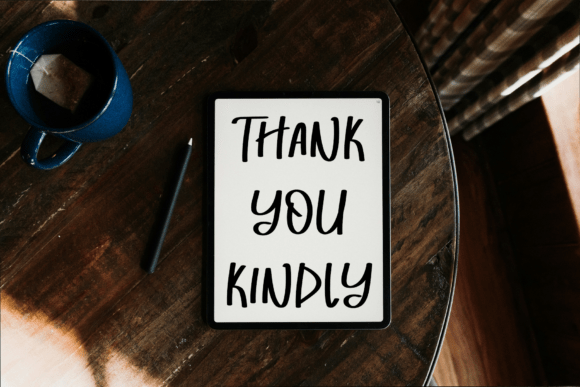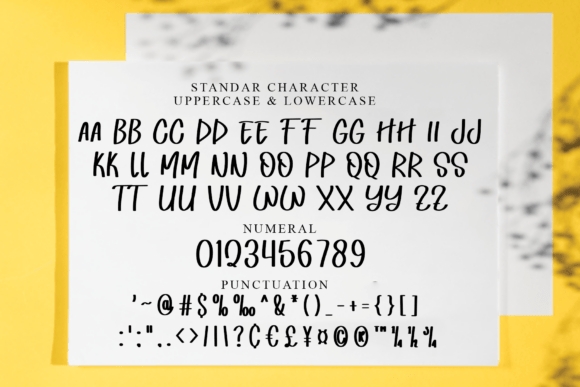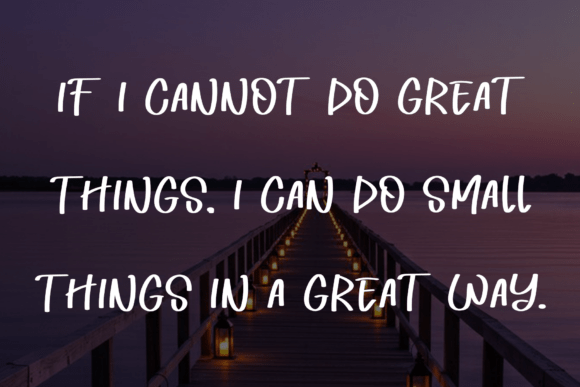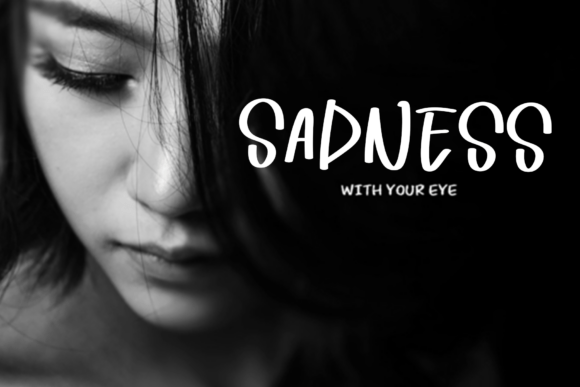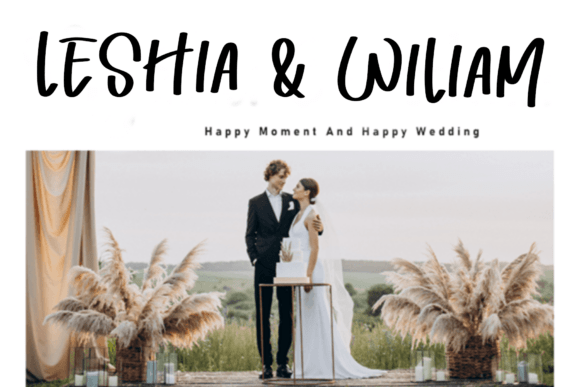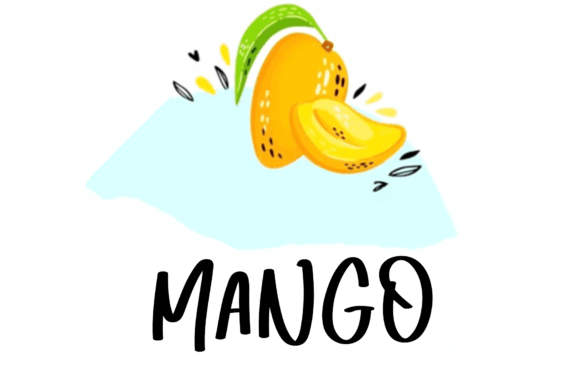
Introducing Handmade Variation Font: A Casual and Creative Typographic Delight
In the world of typography, few fonts manage to convey a sense of warmth and friendliness as effectively as the Handmade Variation font. This delightful font is a perfect blend of casualness and creativity, making it an ideal choice for designers and crafters looking to add a personal touch to their projects. Whether you’re working on personal endeavors, designing invitations, or creating engaging social media graphics, Handmade Variation is sure to bring a smile to your audience’s faces.
The Characteristics of Handmade Variation Font
So, what makes Handmade Variation font stand out from the crowd? For starters, its round, playful strokes create a relaxed and approachable feel that’s hard to resist. The font’s charming, hand-drawn aesthetic adds a fun and unique touch to any design, making it perfect for those who want to infuse their work with a sense of personality and whimsy.
Perfect for Personal Projects and Creative Endeavors
Handmade Variation font is particularly well-suited for personal projects and creative endeavors. Whether you’re designing:
• Personal invitations for special occasions, such as weddings, birthdays, or baby showers
• Social media graphics to engage with your audience and build your brand
• Blog posts or website content that requires a more personal touch
• DIY craft projects, such as handmade cards, gift tags, or scrapbooking pages
This font is sure to add a touch of warmth and personality to your designs. Its casual, hand-drawn aesthetic makes it perfect for creating content that feels approachable, friendly, and inviting.
So, what are the benefits of using Handmade Variation font for designers and crafters? Here are just a few:
• Unique and distinctive designs: Handmade Variation font allows you to create designs that stand out from the crowd and reflect your personality and style.
• Versatile: This font is perfect for a wide range of design projects, from personal invitations to social media graphics and blog posts.
• Time-saving: With Handmade Variation font, you can create professional-looking designs in no time, without sacrificing quality or personality.
Tips for Using Handmade Variation Font
To get the most out of Handmade Variation font, here are a few tips to keep in mind:
• Experiment with different colors and textures: Handmade Variation font looks great with a wide range of colors and textures, so don’t be afraid to get creative and try out different combinations.
• Pair with other fonts: Consider pairing Handmade Variation font with other fonts to create a unique and visually appealing design.
• Use for headlines and body text: Handmade Variation font is perfect for both headlines and body text, making it a versatile choice for a wide range of design projects.
In conclusion, Handmade Variation font is a casual and creative typographic delight that’s perfect for designers and crafters looking to add a personal touch to their projects. With its round, playful strokes and charming, hand-drawn aesthetic, this font is sure to bring a smile to your audience’s faces. So why not give it a try and see the difference it can make in your designs?